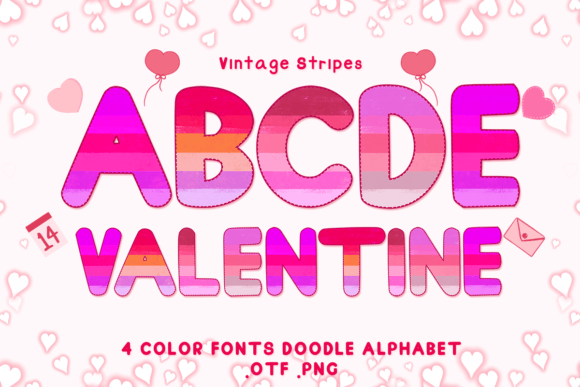
Vintage Stripes: The Retro-Chic Font for Timeless Design
There's a certain magic in the way a classic striped pattern catches the eye. It’s nostalgic yet fresh, bold yet refined. That’s the feeling captured in the Vintage Stripes font. This isn't just another typeface; it's a design asset that brings a distinct personality to your work. Imagine the confident lines of a mid-century advertisement or the playful charm of a retro diner sign, all encoded into a single, versatile font. The core appeal lies in its unique visual texture—each letterform is built with clean, parallel lines, creating a sense of movement and rhythm that flat, solid fonts simply can't achieve. It’s a premium font that feels both intentional and effortlessly stylish.
Where Vintage Stripes Truly Shines
Understanding where a font like this excels is key to using it effectively. Its character makes it a standout choice for logo design and brand identity projects that aim for a touch of heritage or artisanal quality. Think of a boutique coffee roaster, a craft brewery, or a vintage clothing label. The font instantly communicates a story of quality and care. For packaging design, it can transform a simple product into a shelf standout, evoking a sense of trusted tradition. In the digital realm, Vintage Stripes is a powerful tool for social media graphics and web design headers, where grabbing attention in a crowded feed is paramount. Its textured appearance ensures it doesn't get lost in the scroll.
Beyond commercial use, its charm is perfect for personal projects. Crafters and hobbyists will find it ideal for creating memorable wedding invitations, festive greeting cards, or custom apparel. The font’s inherent style does much of the heavy lifting, allowing you to create professional-looking designs with minimal effort. It’s a creative font that bridges the gap between professional editorial design and heartfelt personal creation. Whether you're designing a magazine feature spread or a simple thank-you note, it adds a layer of visual interest and sophistication.
Making Vintage Stripes Work for Your Project
Choosing the right font is a strategic decision. Before committing to Vintage Stripes for a project, consider the overall tone. Its retro aesthetic pairs beautifully with clean, modern sans serif fonts for body text, creating a compelling contrast. For a more cohesive vintage feel, it can be paired with a simple serif font. Always test font pairings in context. Place your headline in Vintage Stripes alongside your chosen body copy on a mock-up of your actual project—be it a website homepage, a business card, or a product label. This practical test reveals more about visual hierarchy and readability than viewing the font in isolation.
It's important to note that Vintage Stripes is an OpenType-SVG color font. This means the striped texture is embedded directly into the font file, ensuring perfect consistency and making it incredibly easy to use—no manual outlining or adding pattern layers required. This technology is supported in leading design software like Adobe Photoshop, Illustrator, and Inkscape. However, it's crucial to check compatibility with your specific workflow, especially if you use certain cutting machines. For a deeper understanding of working with color fonts, reviewing a comprehensive guide can be invaluable for ensuring your design assets perform as expected across all platforms.